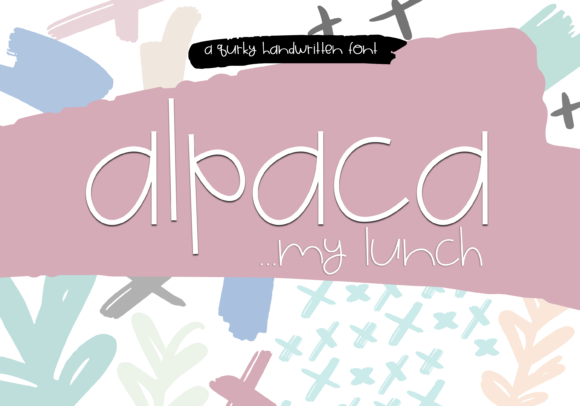
Set sail on a font voyage with Alpaca Font, a whimsical display font that transforms designs into enchanting tales! This playful creation by KA Designs ignites joy, like a sprinkle of confetti scattered across your digital canvas. Dive into a world of captivating designs, where letters dance in harmony, weaving stories with every stroke.
Alpaca Font's unique charm radiates through its playful curves and enchanting details. Each character carries a personality, ready to infuse your projects with vibrancy and whimsy. From playful invitations to captivating social media posts, Alpaca Font breathes life into every design, making it a favorite among discerning creatives.
Immerse yourself in the creative possibilities, let your imagination soar, and embark on a design journey like no other. Unleash the power of Alpaca Font to transform ordinary words into extraordinary expressions. Its versatility shines through, whether you seek whimsical invitations, captivating social media posts, or eye-catching marketing materials.
With Alpaca Font, discover a world where design takes flight. Let its exuberant spirit ignite your creativity and leave a lasting impression on all who encounter your creations. Embrace the magic of Alpaca Font and set your designs free!